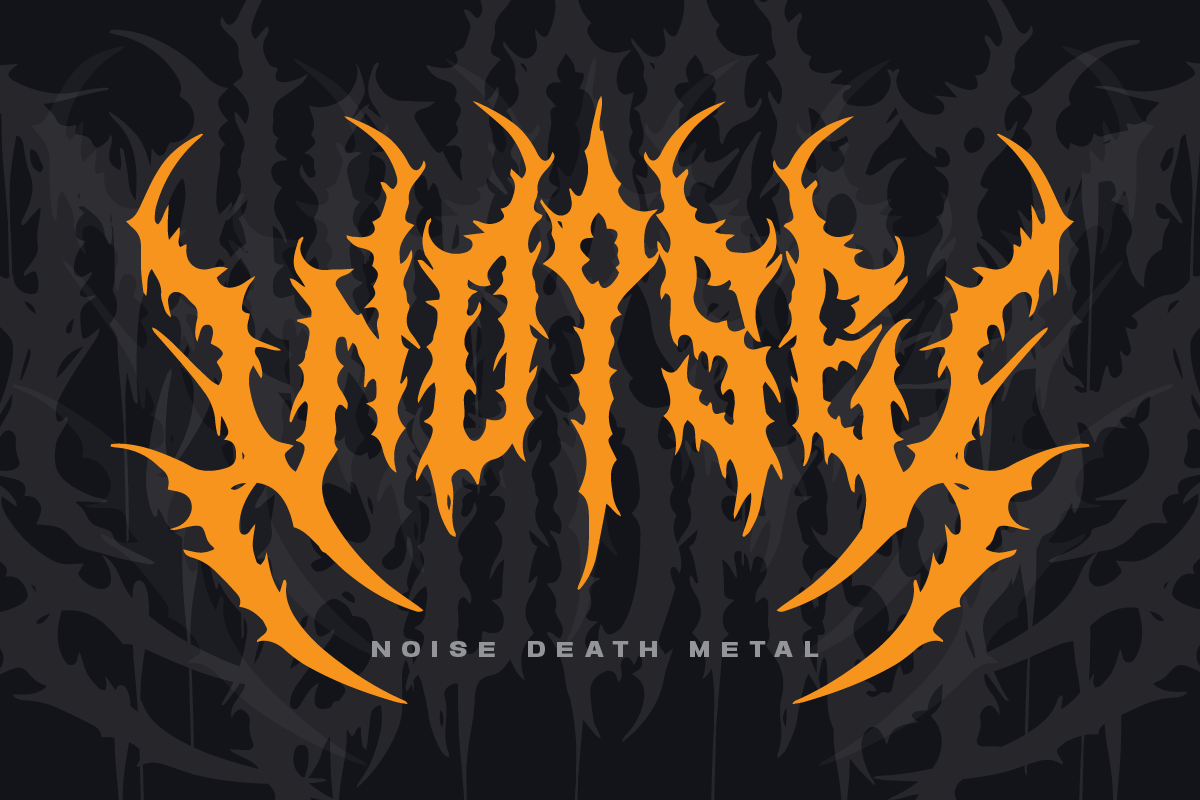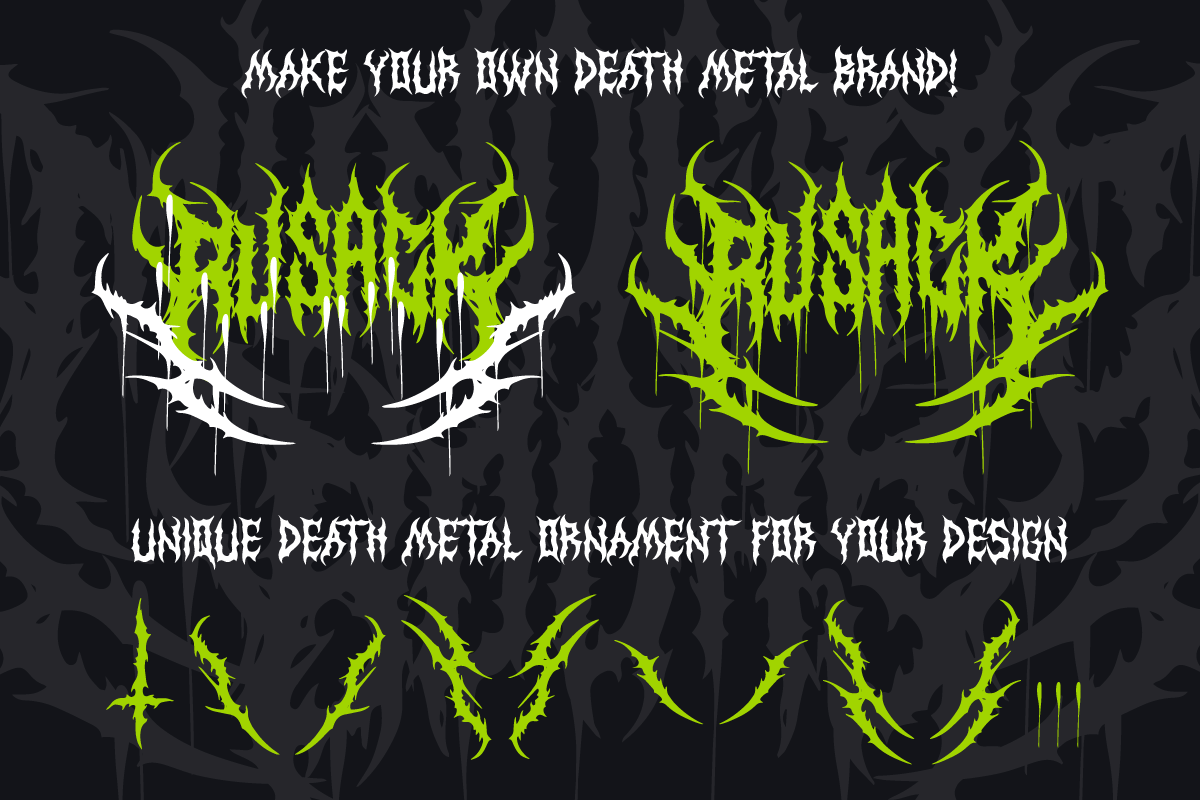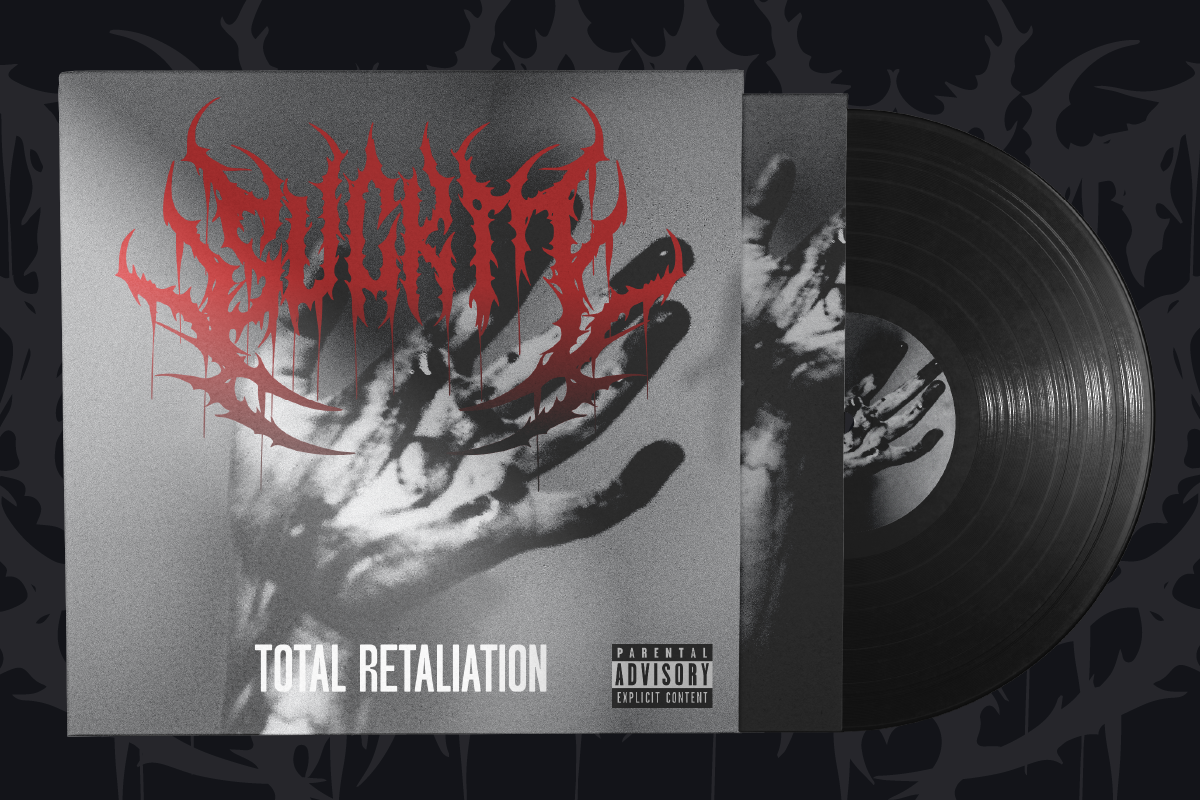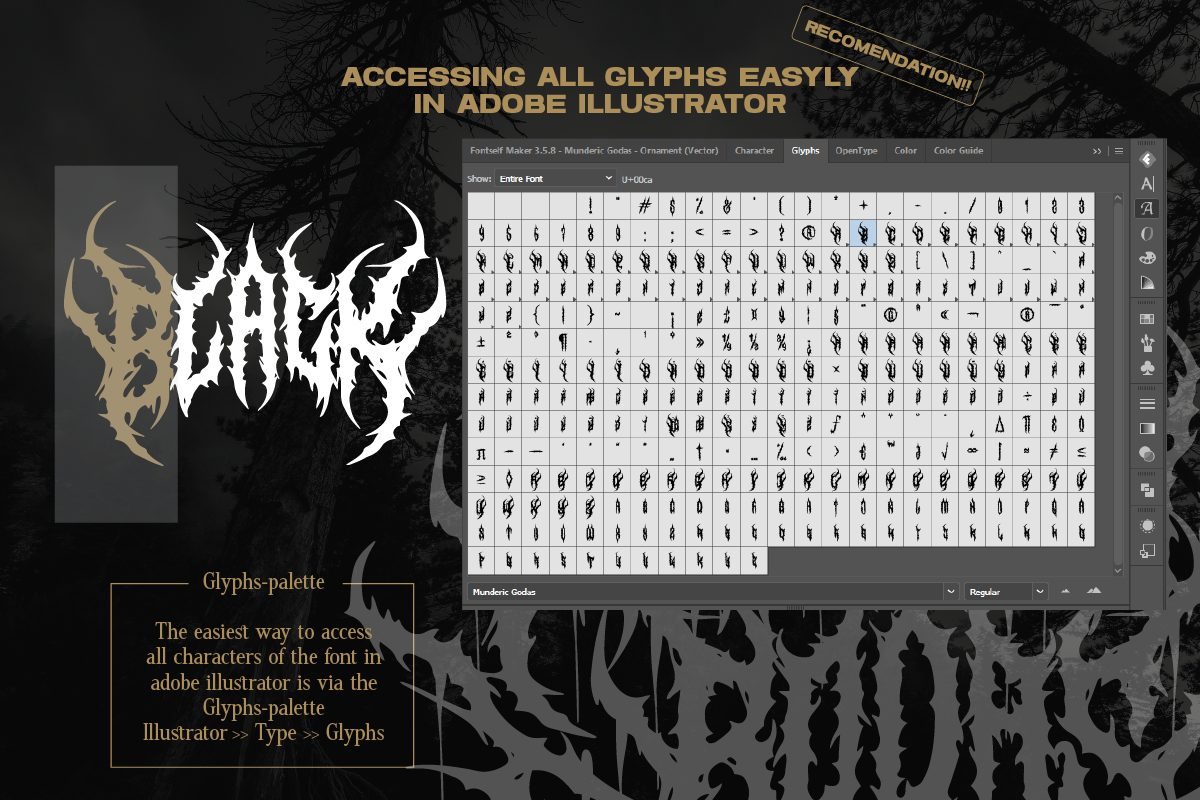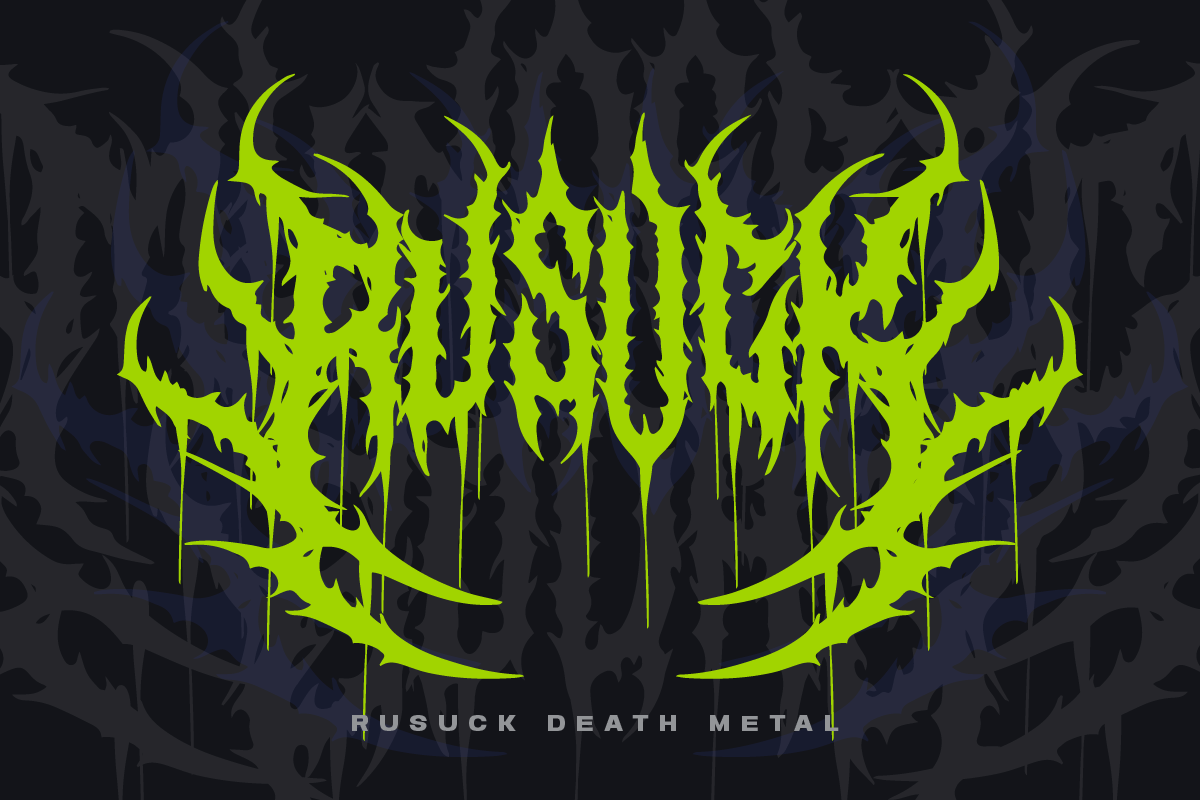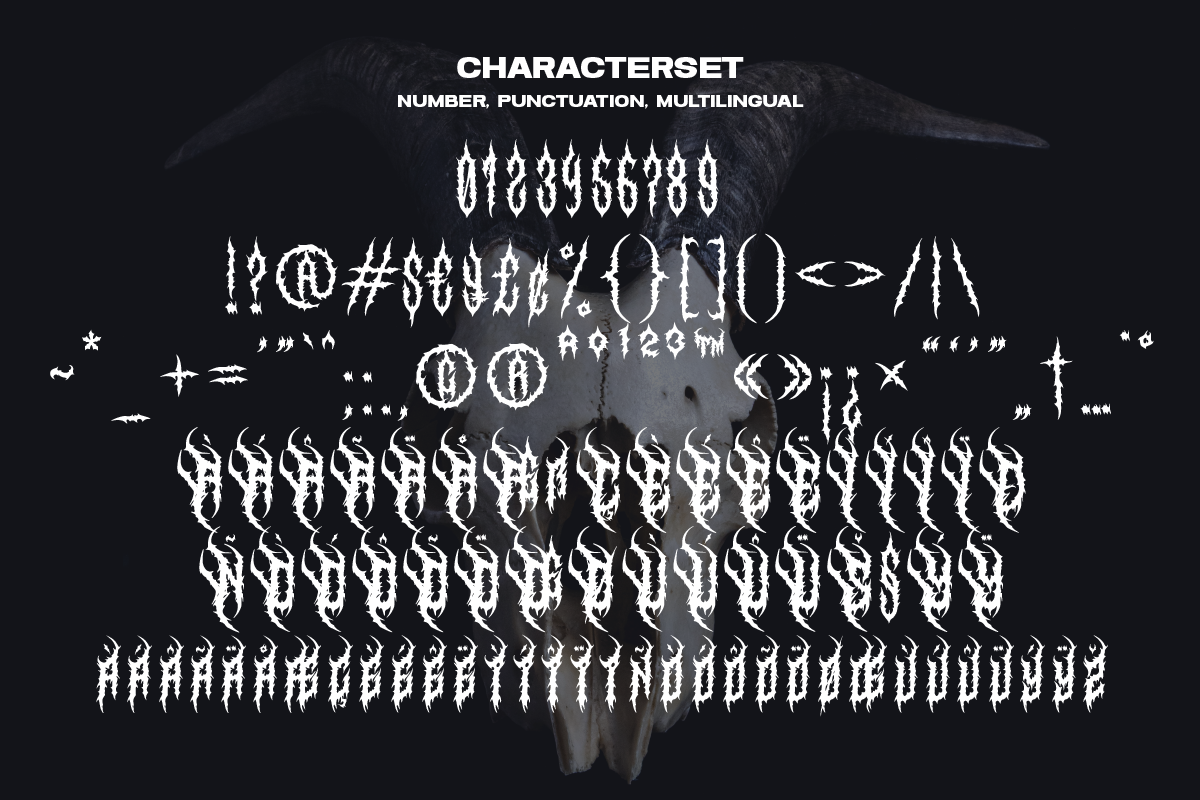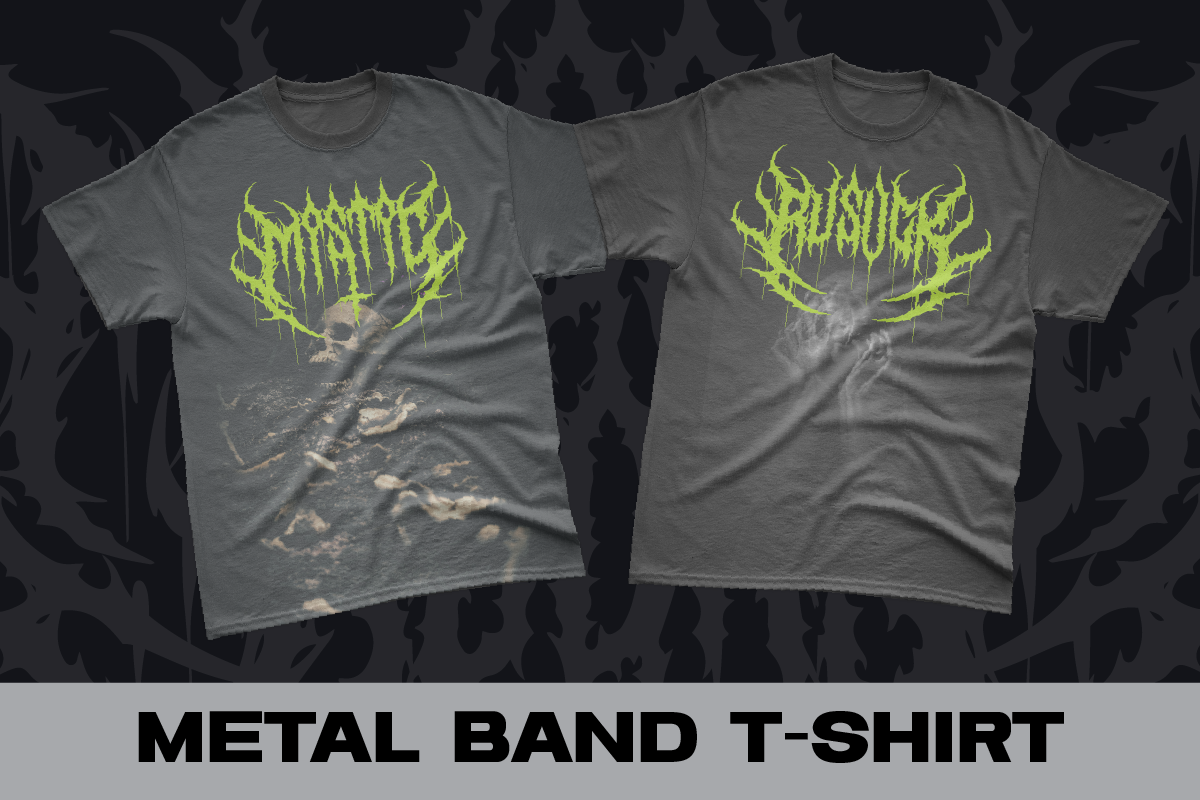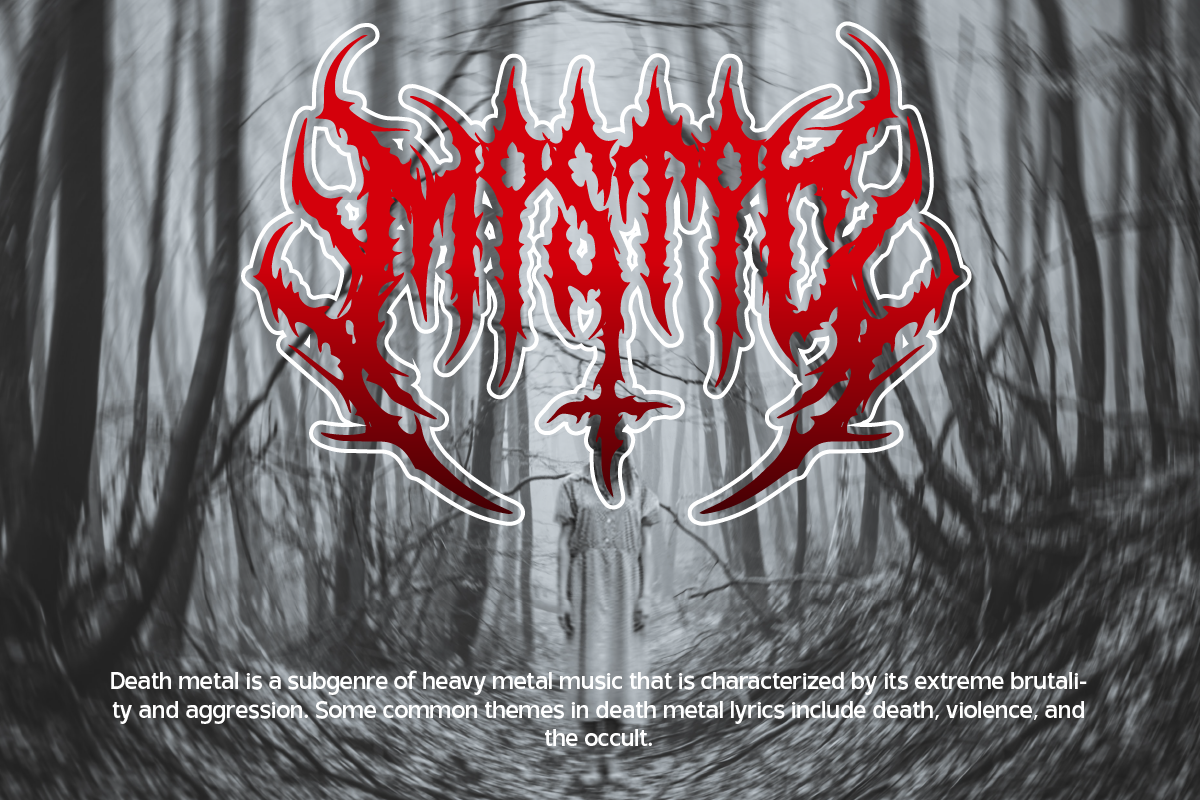
Munderic Godas Death Metal Font
Munderic Godas Font is a cool alternative for you to easily create a logo for your Underground band or whatever. Using alternate front and ending letters brings the font to life, It comes with a basic character set and a small group of symbols and signs often used in the extreme music sector – the classics of Death- and Blackmetal like pentagram drops, roots, spikes and more.